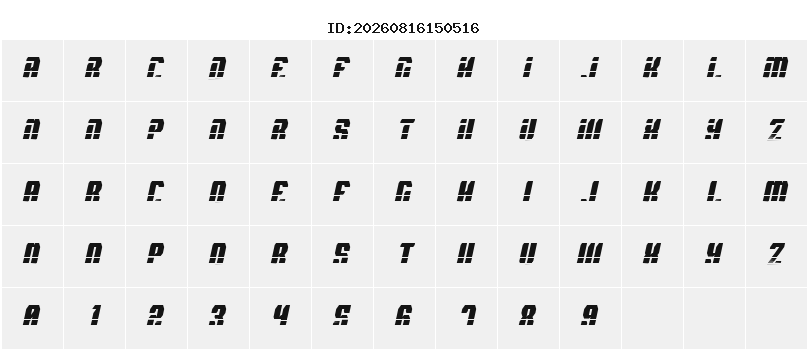
Spyh Preview
• Font Name: Spyh
• Font Style: Vent Italic
• Font ID: TracerTong: Spyh Vent Italic: 2012
• Full Font Name: Spyh Vent Italic
• Version: 2.1 - Feb 2012
• PostScript Name: Spyh-VentItalic
• Character Count: 95
• Manufacturer: TracerTong
About Spyh.ttf